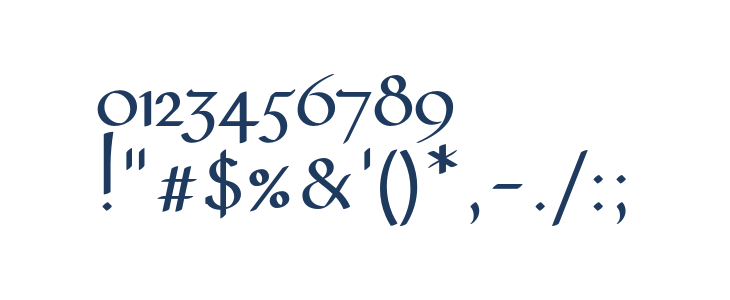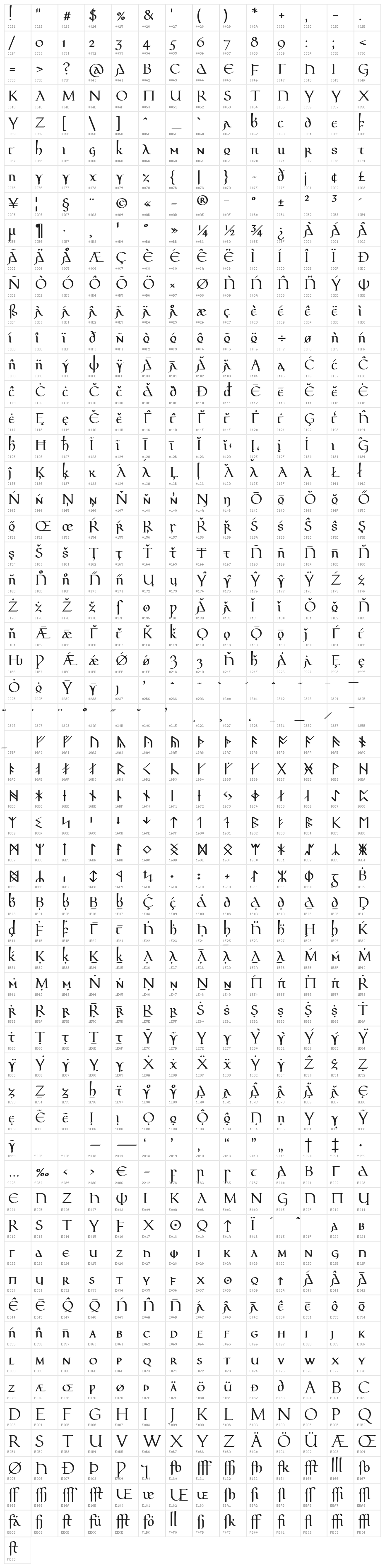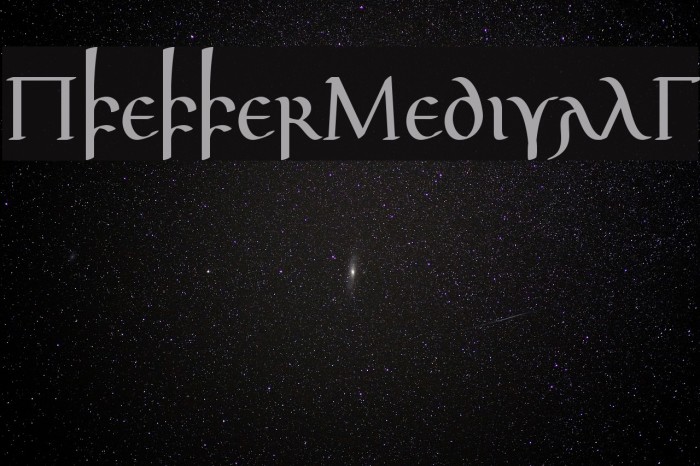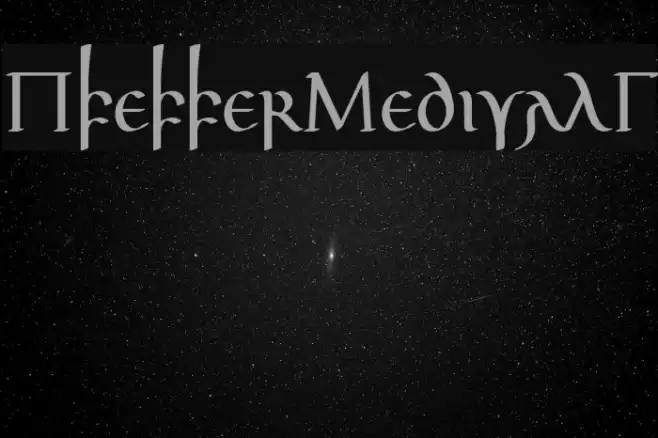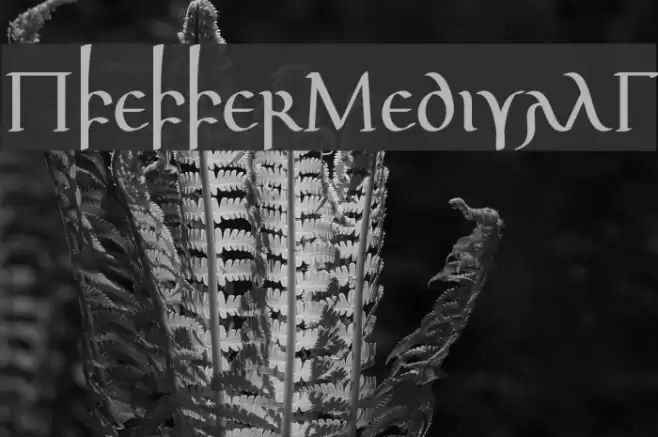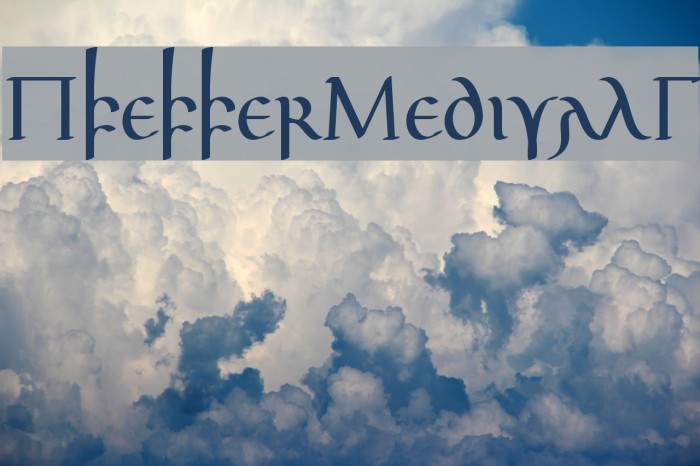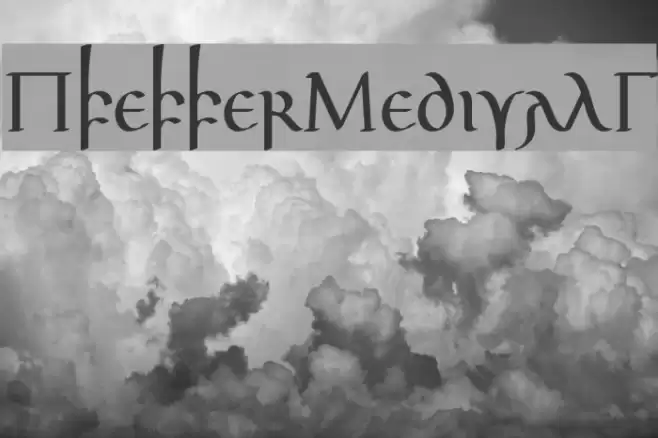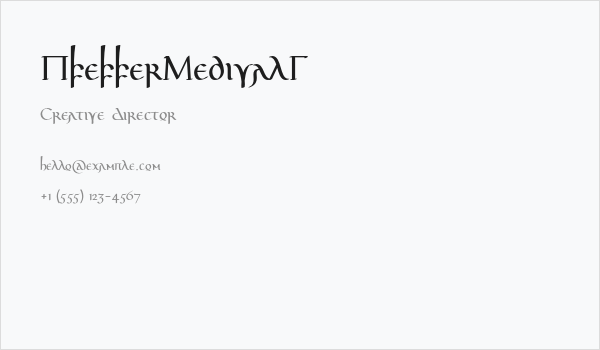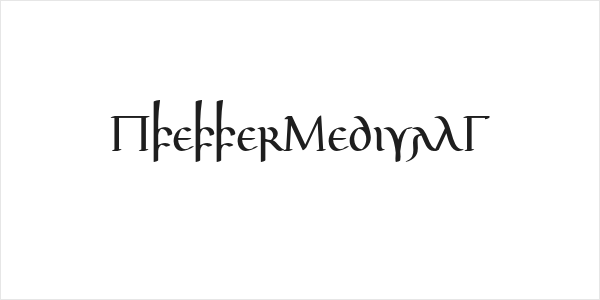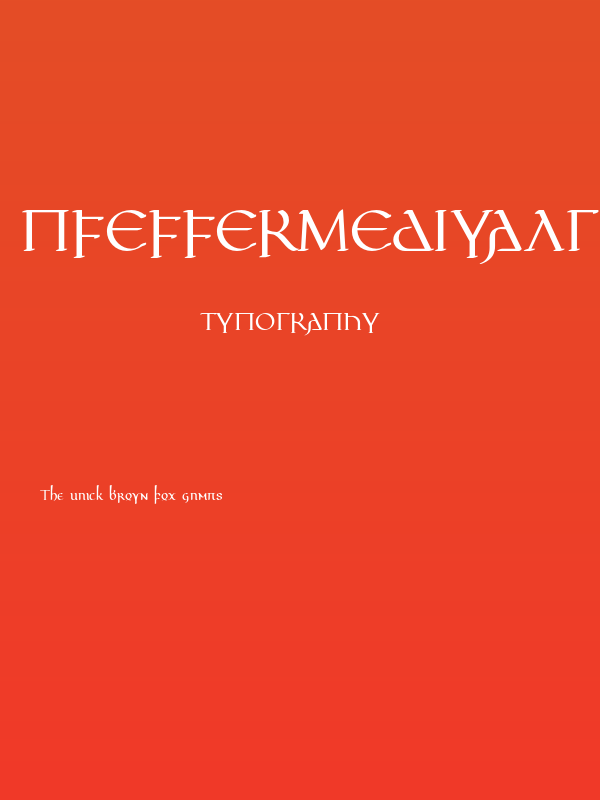
PfefferMedivalG Font
PfefferMedivalG Description
This font embodies a medieval aesthetic with its sharp, angular lines and intricate detailing. The uppercase letters feature a unique blend of straight and curved strokes, giving them a distinct, historical feel. The lowercase letters maintain this theme with a slightly more fluid design, yet still retain the sharpness characteristic of medieval script. The numerals are bold and clear, with a consistent style that complements the alphabet. Special characters are designed with the same attention to detail, ensuring a cohesive look across all glyphs. This font's overall appearance is both decorative and legible, making it suitable for a variety of creative applications.
Overall StyleMedieval, Decorative
Use CaseHeadlines, Logos, Decorative text
Proposed ProjectsIdeal for historical themed projects, fantasy book covers, medieval event invitations, and decorative signage.